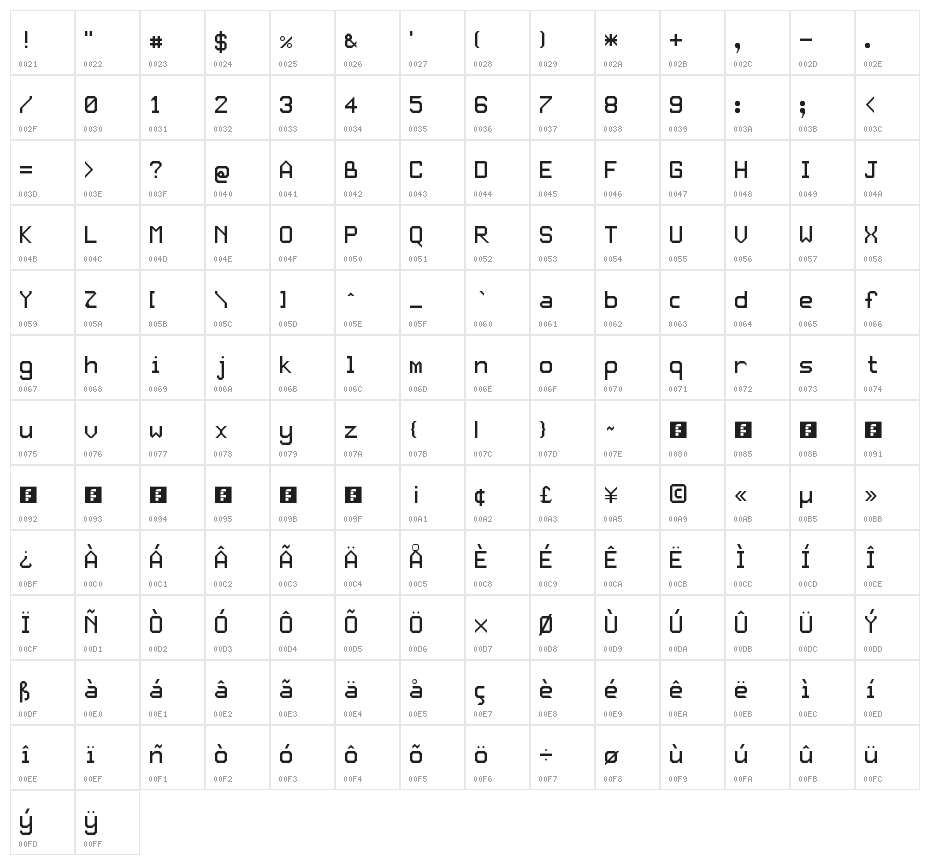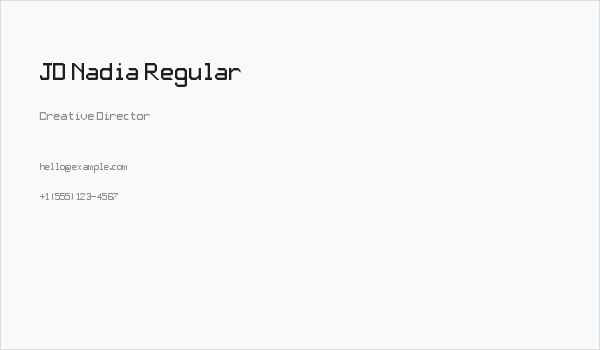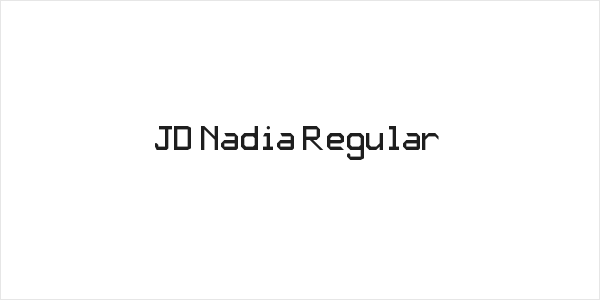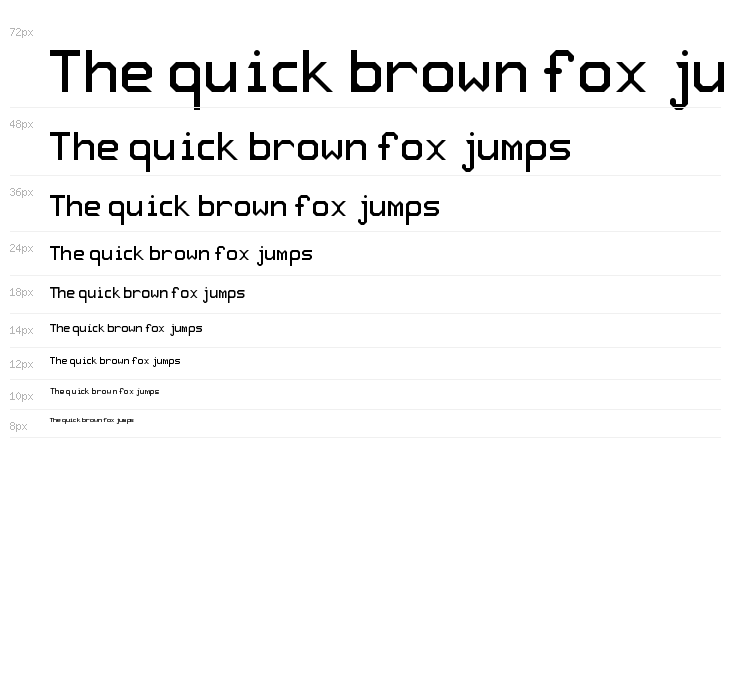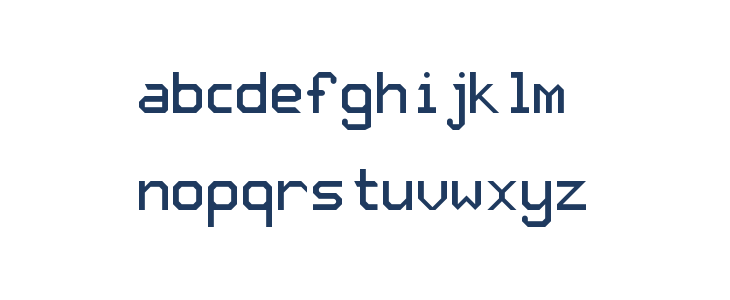
JD Nadia Regular Font
JD Nadia Regular Description
This font features a geometric and angular design, characterized by its sharp edges and clean lines. The uppercase letters are bold and structured, giving a sense of modernity and strength. The lowercase letters maintain a consistent style, with a slight variation in stroke thickness that adds a subtle dynamism. The numerals are clear and legible, matching the overall aesthetic of the font. Special characters are distinct and well-defined, ensuring versatility in various design contexts. The font's overall appearance is both futuristic and functional, making it suitable for a wide range of applications.
| Use Case | Headlines, Logos, Digital interfaces |
| Proposed Projects | Ideal for technology branding, modern posters, and digital interfaces. |